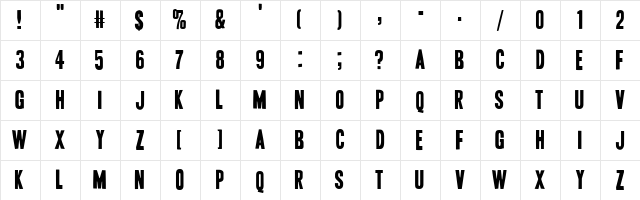
Design Context for Vive la Rivoluzione
Vive la Rivoluzione is a composed and adaptable typeface that performs quietly and consistently across a wide range of design contexts.
Pro Tip: Use Vive la Rivoluzione in both headline and body roles to test its range before committing to a single application.